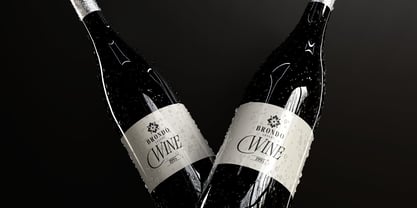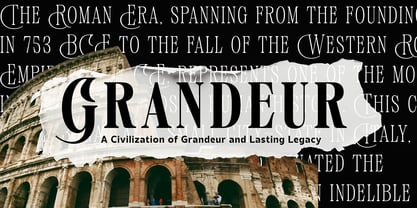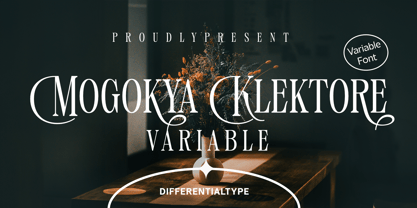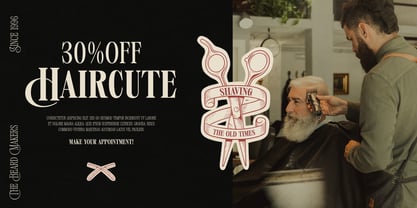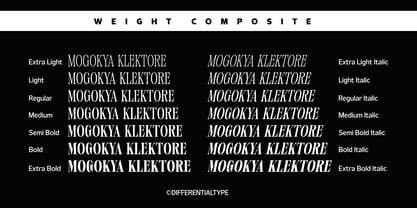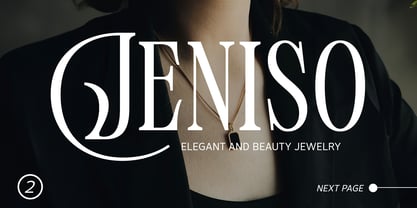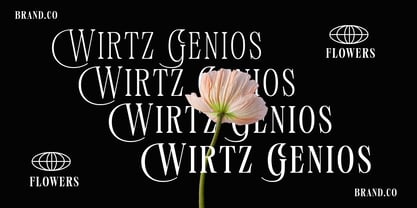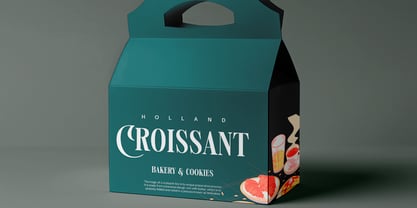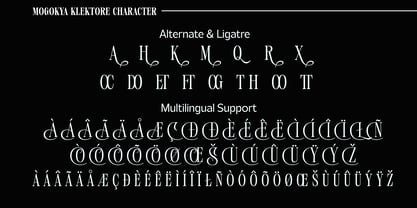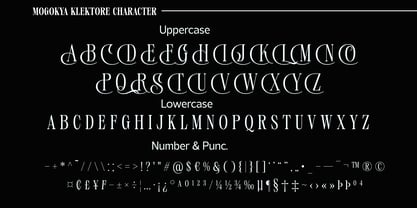
Mogokya Klektore Variable
by Differentialtype
The Mogokya Klektore Variable Font Family was designed by Sidik Sidik and published by Differentialtype. Mogokya Klektore Variable contains 1 styles. More about this family
Mogokya Klektore Variable is a serif display font that exudes luxurious elegance with a modern twist. The unique blend of uppercase and lowercase letters creates a casual, contemporary feel, making it a perfect choice for designers looking to merge classic sophistication with a trendy vibe. With its strong and versatile character, the Mogokya Klektore Variable font is ideal for a wide range of professional design needs. It's particularly well-suited for product branding, logos, headlines, book covers, titles, and posters, where it can elevate your message with an air of luxury. Mogokya Klektore Variable adds an exclusive and classy touch, ensuring your design projects look distinct and unforgettable.
Designers: Sidik Sidik
Foundry: Differentialtype
Mogokya Klektore Variable